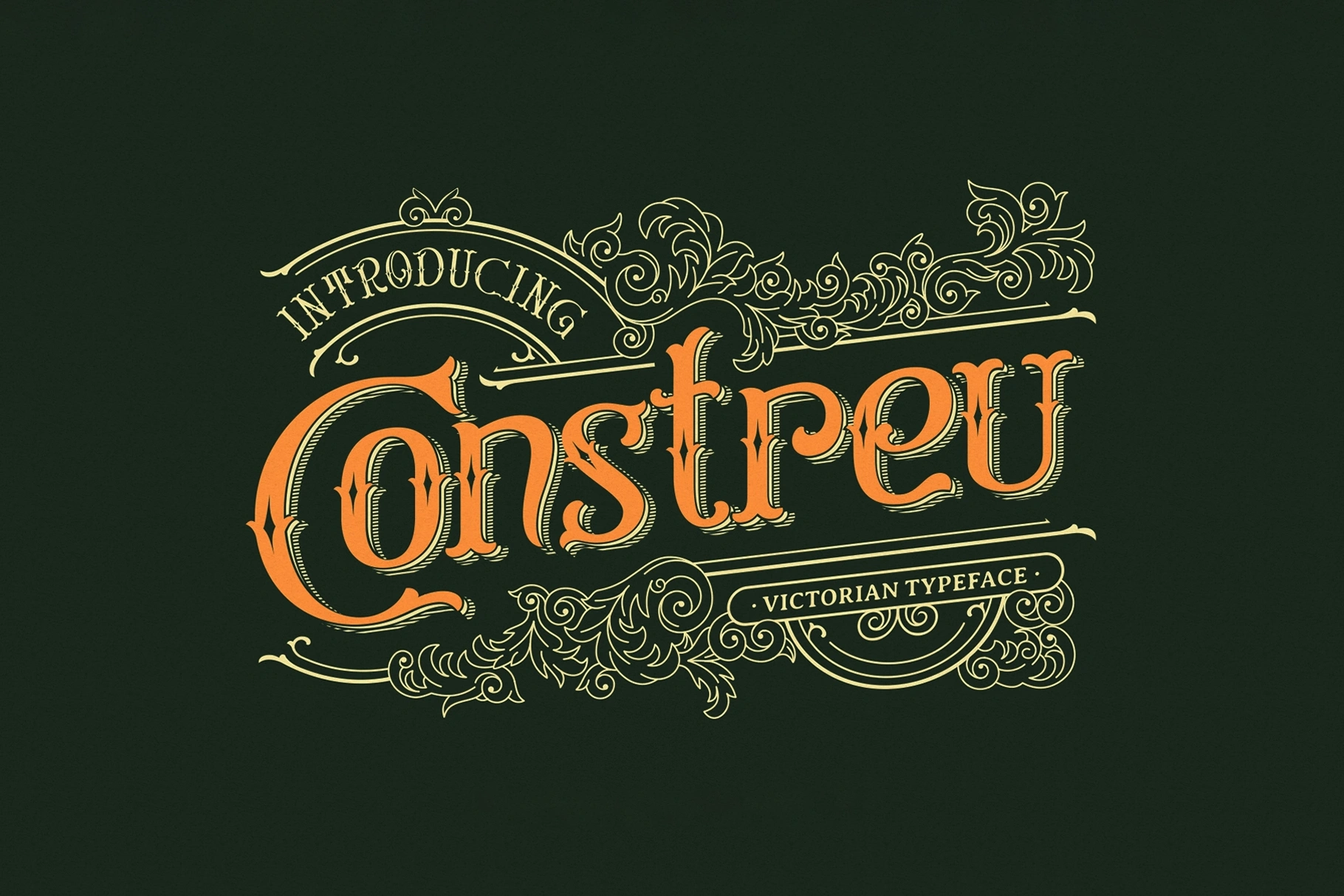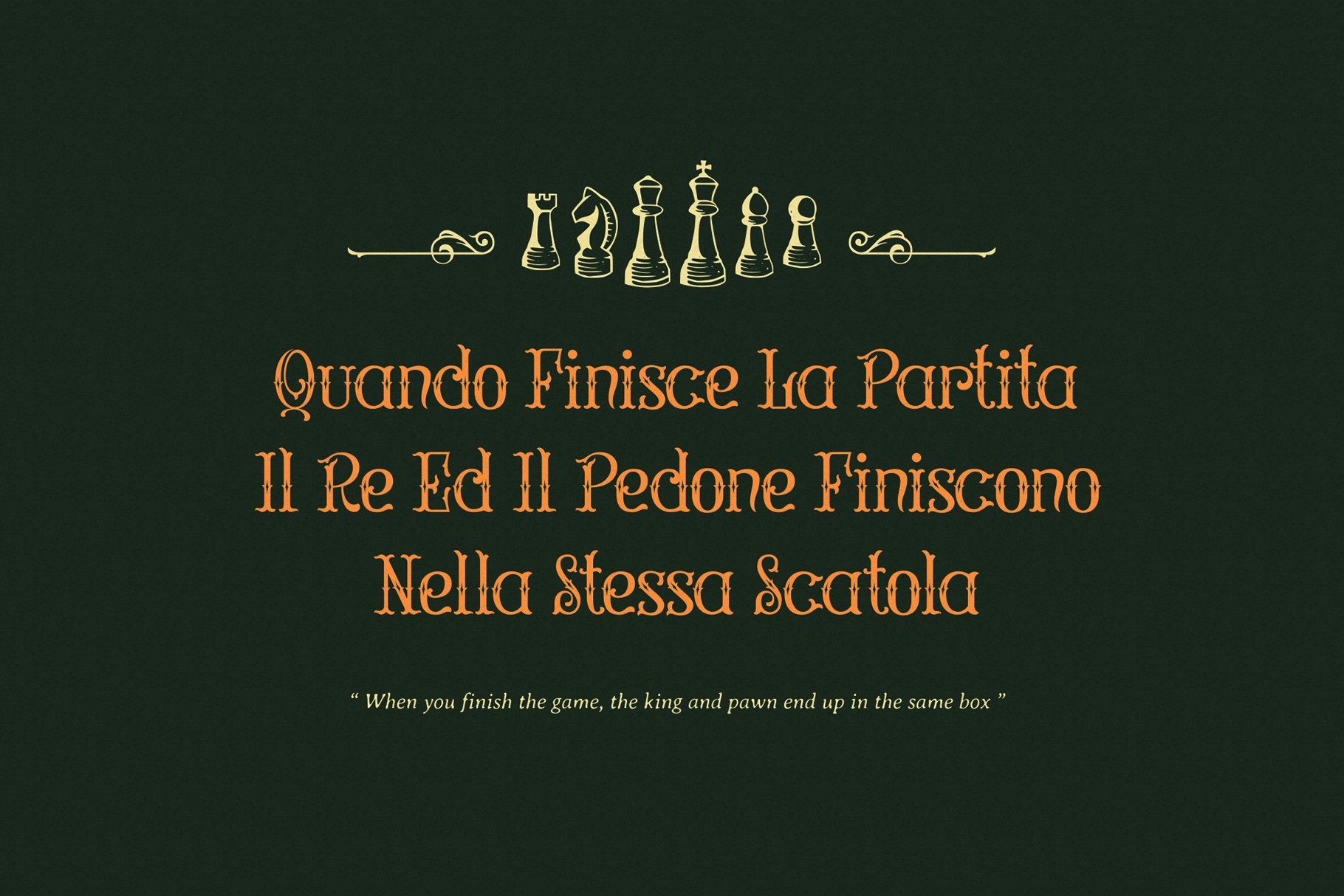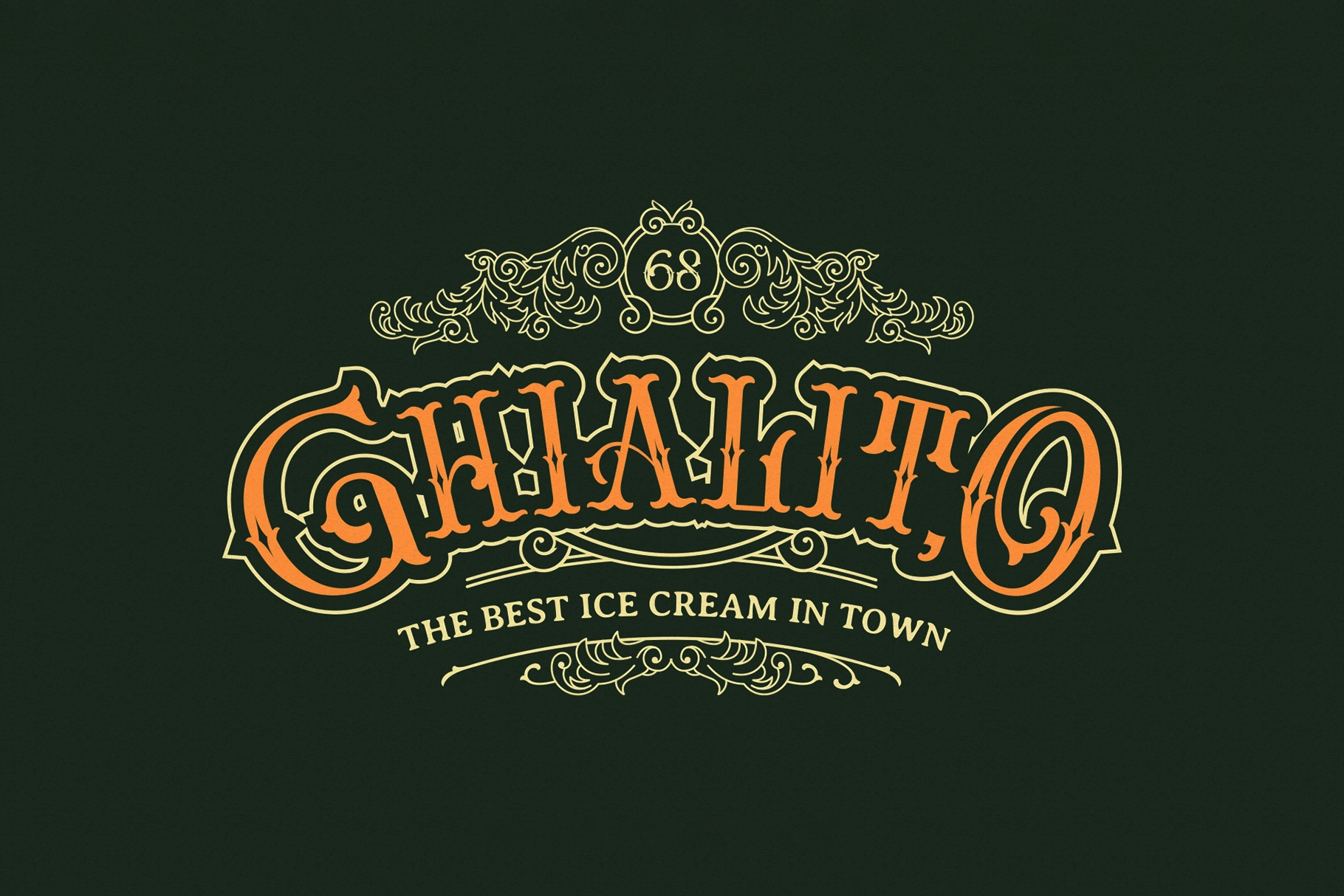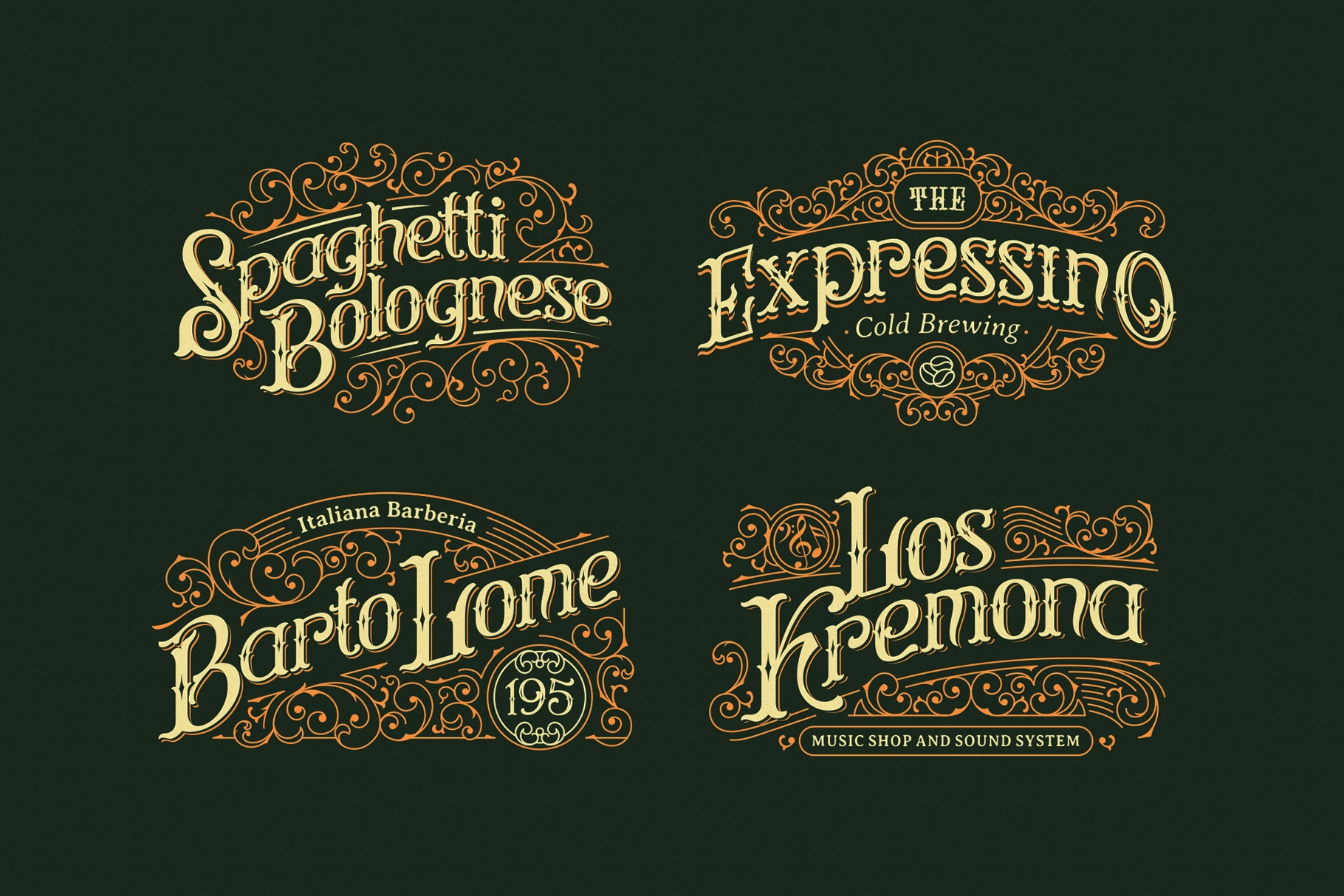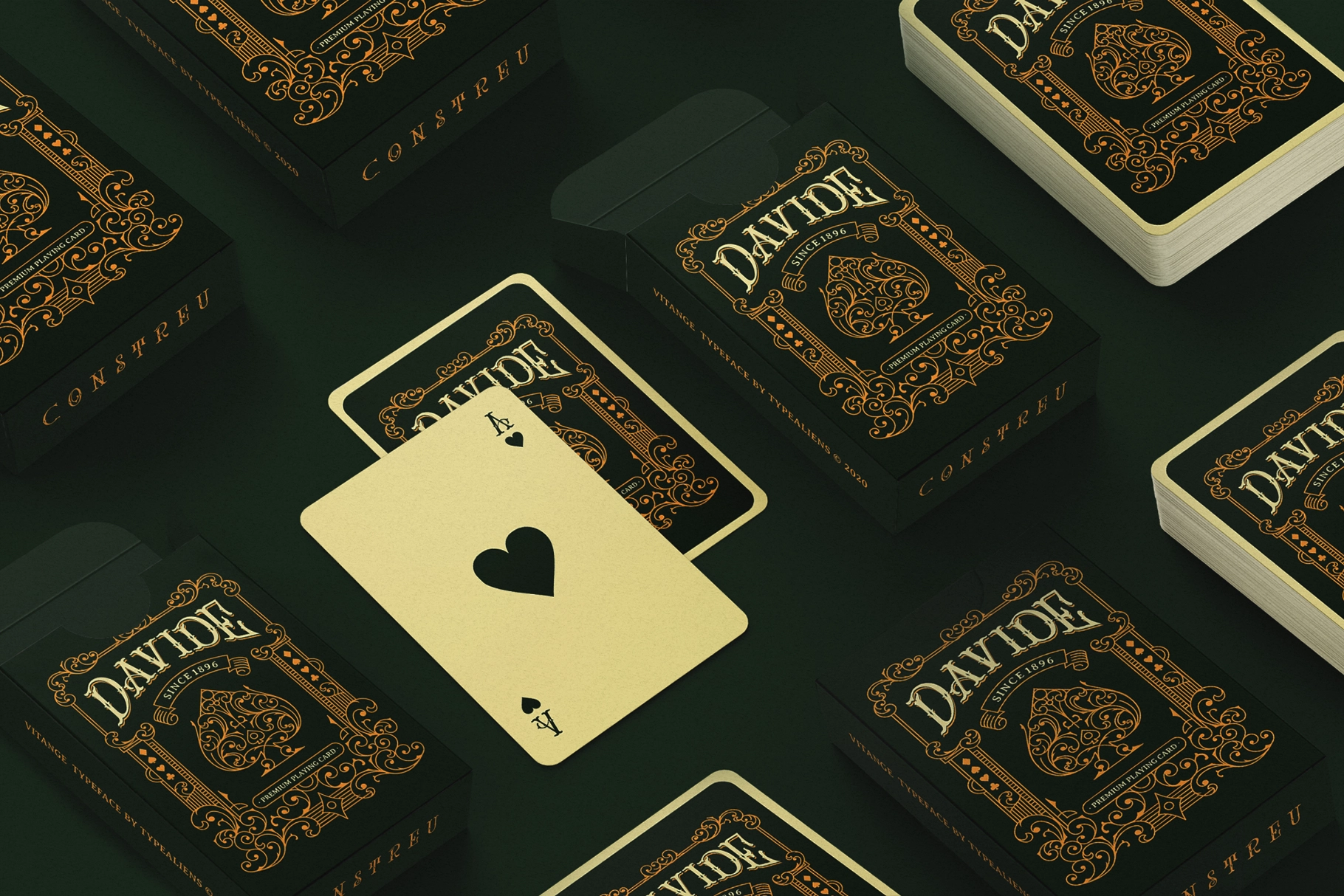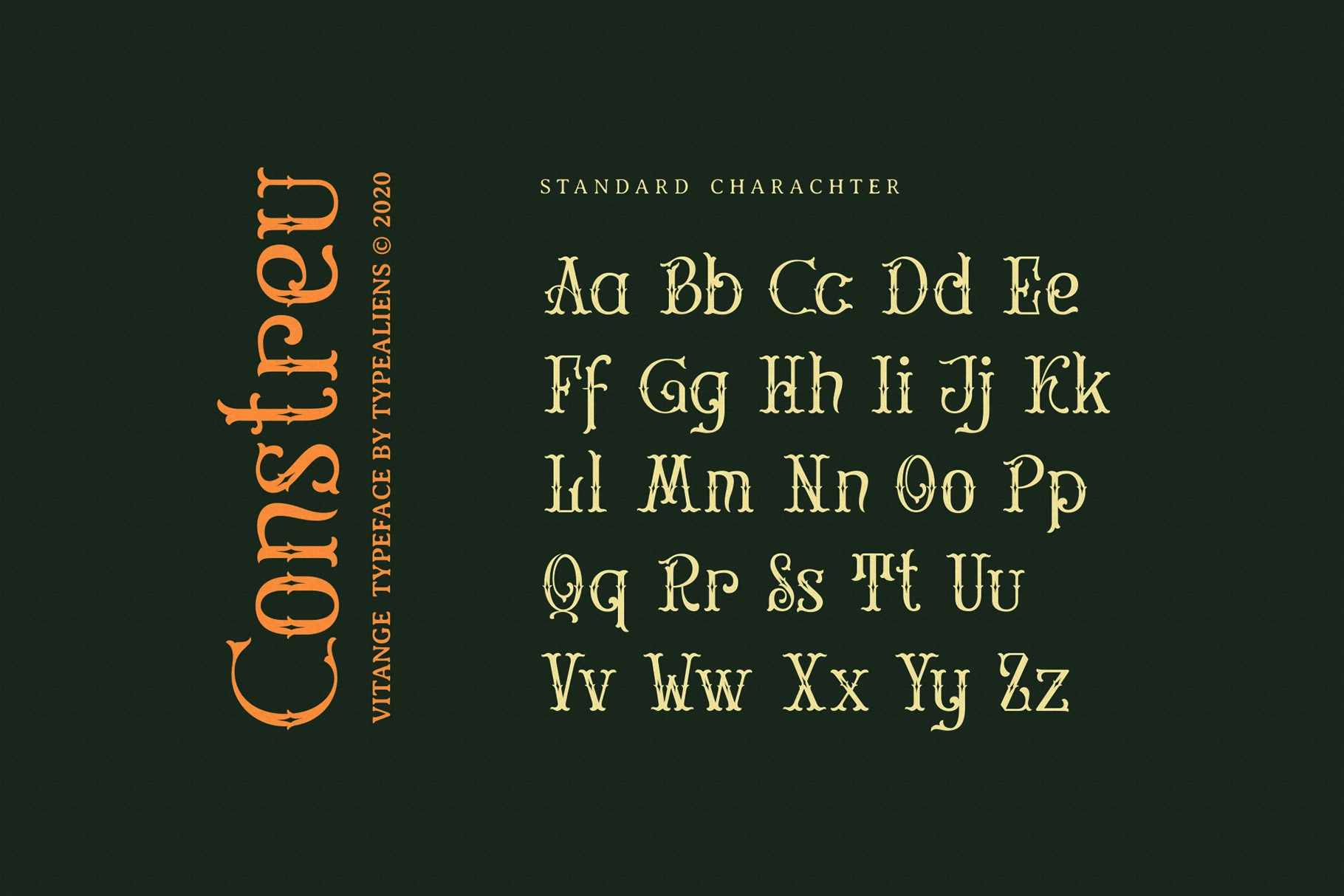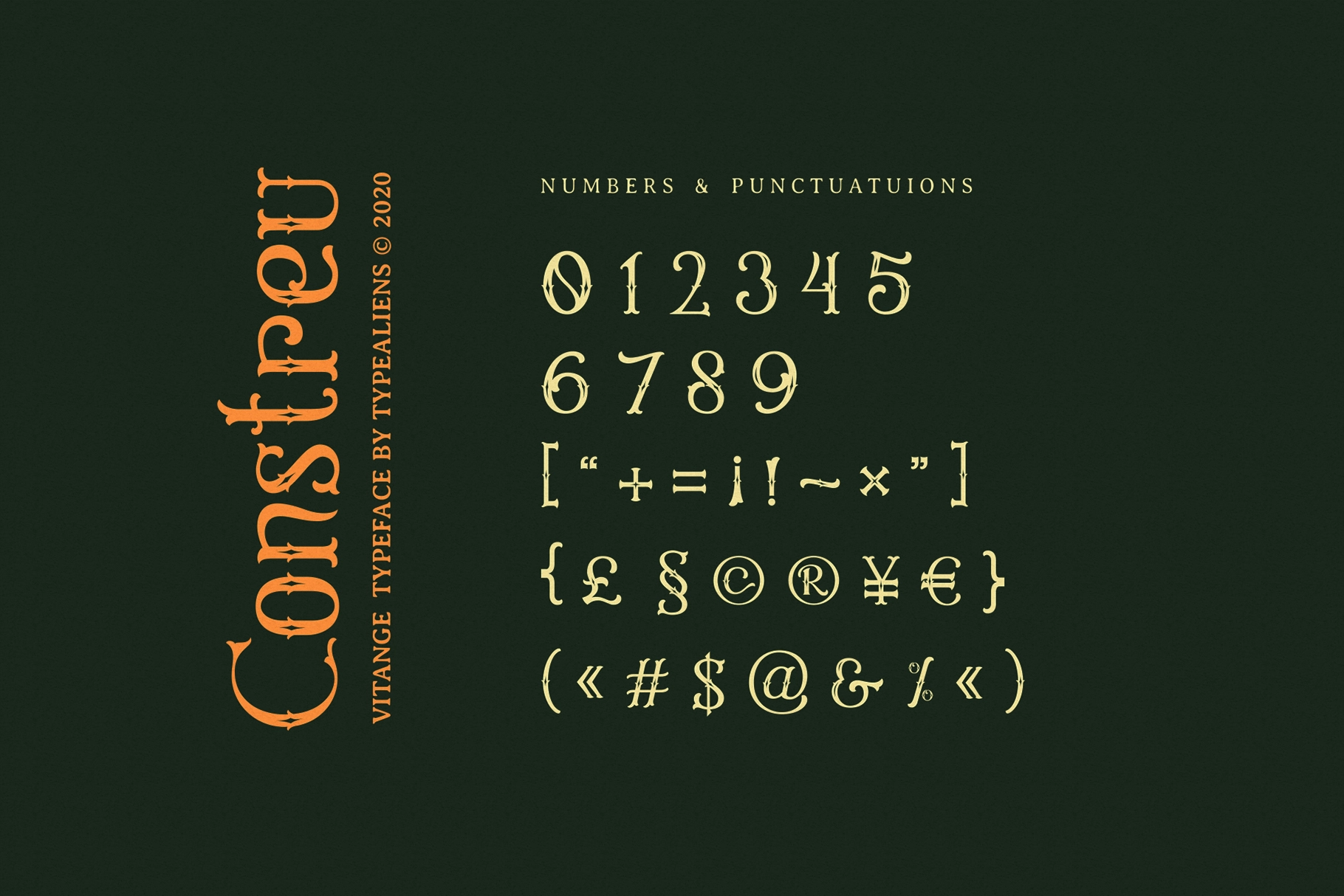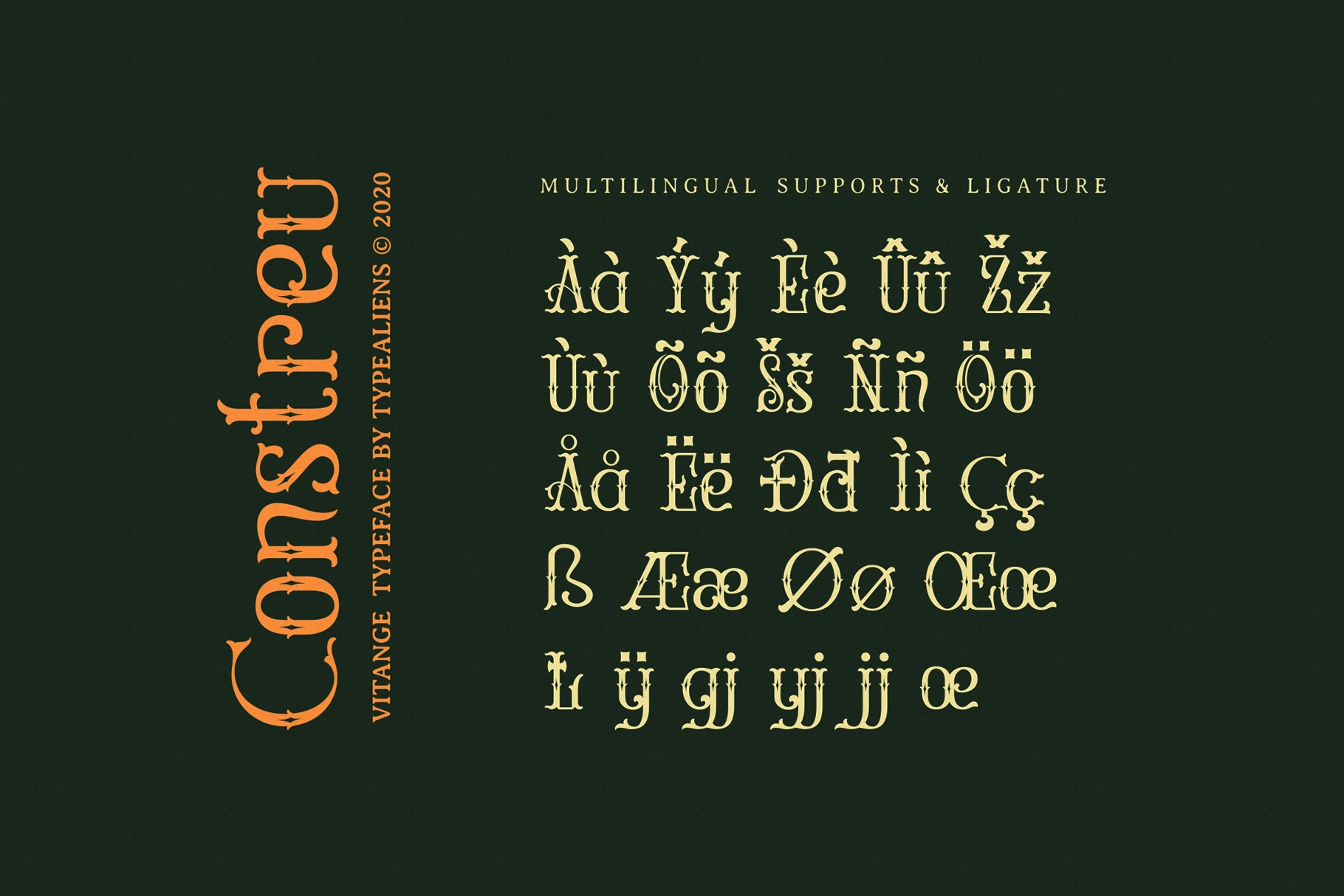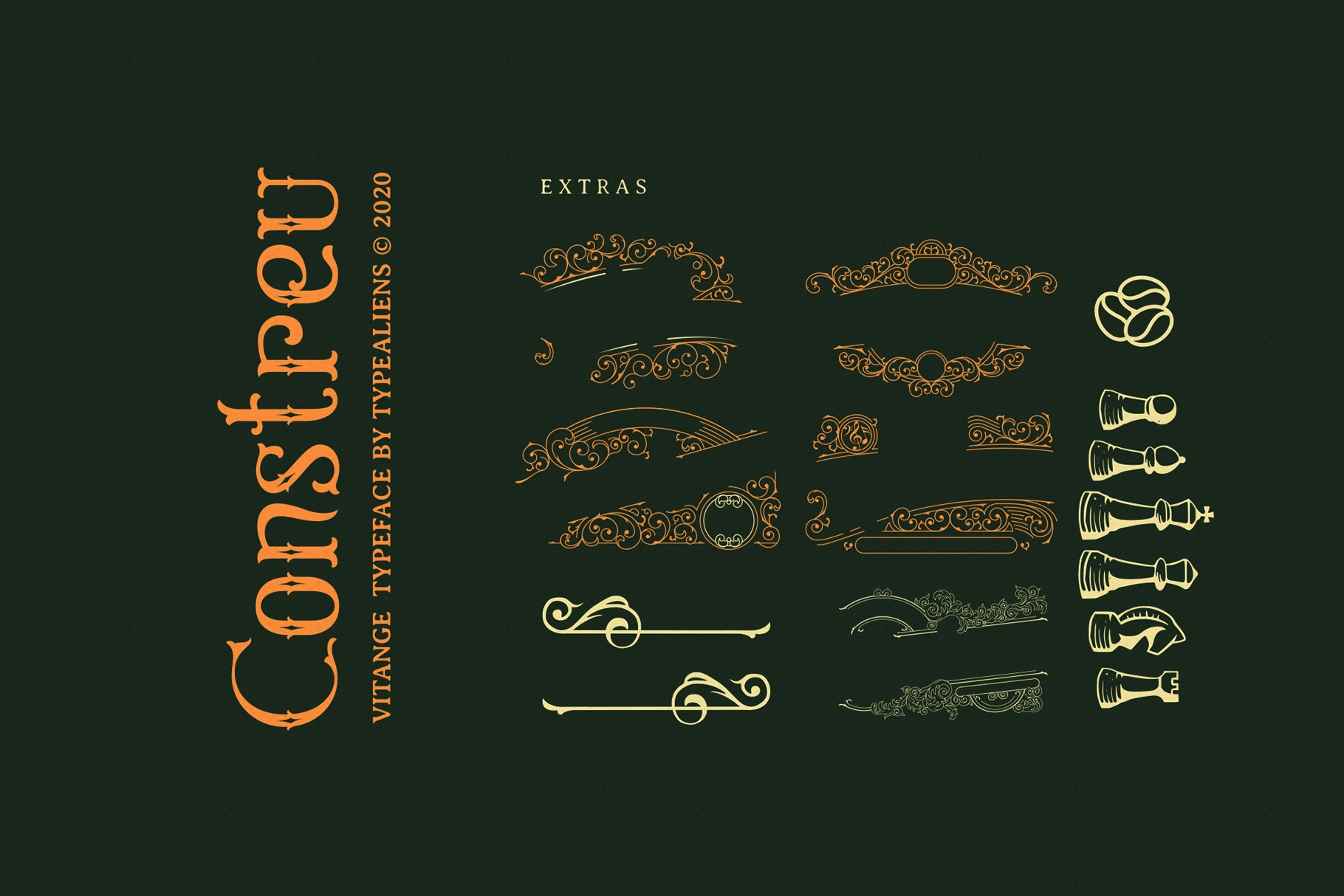
Constreu - Vintage Victorian Font
Constreu
This vintage serif font has a Victorian display style with ornate terminals, engraved details, and a theatrical rhythm that still keeps the letterforms readable. Its curled accents, shaded cuts, and antique sign-painter character make it a strong pick for designs with old-world charm and a little parlor-room drama.
Constreu works well for heritage logos, whiskey labels, playing cards, badges, cafe branding, ice cream packaging, restaurant signage, book covers, poster headlines, bar menus, cigar labels, decorative borders, and more. The extra ornaments and chess-piece illustrations add useful detail for label systems, crest-style layouts, vintage marks, and ornamental compositions.
- Ligatures
- Decorative extras